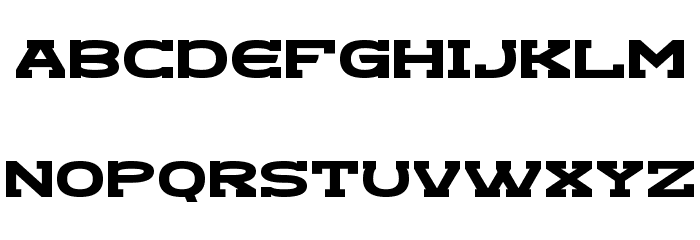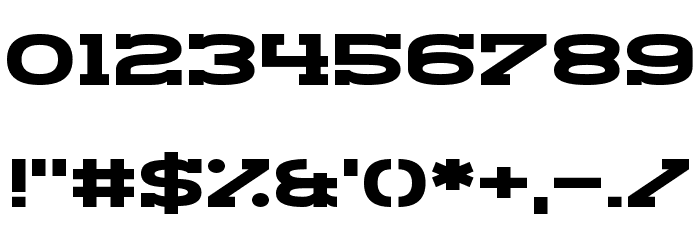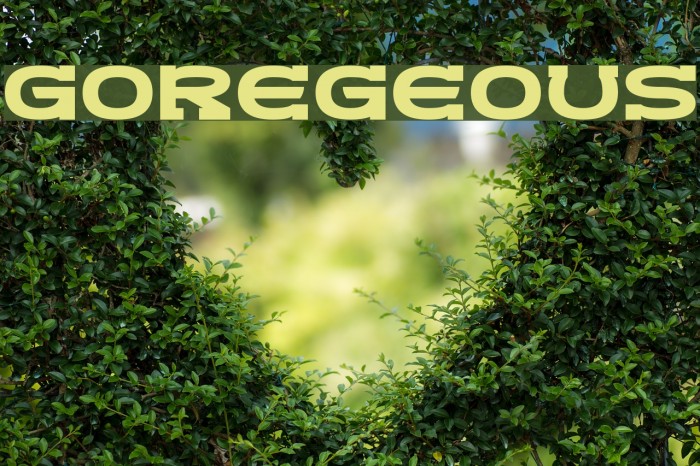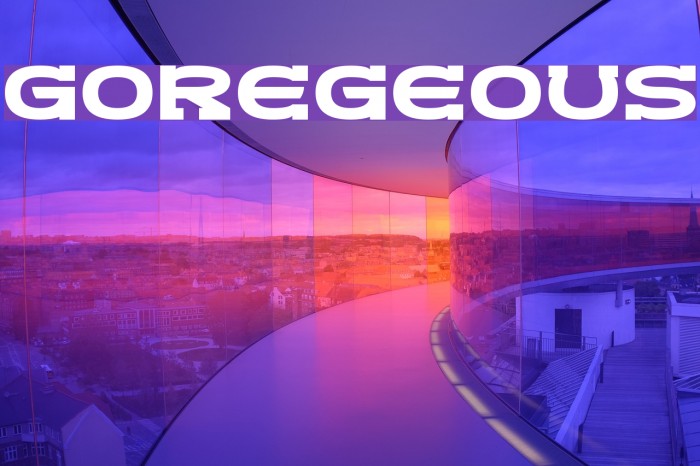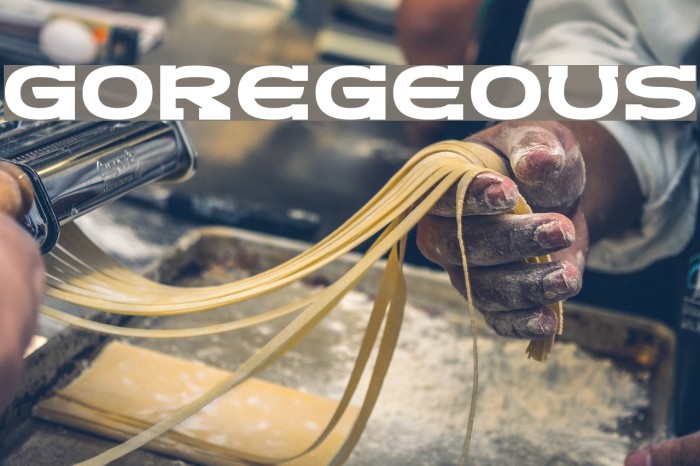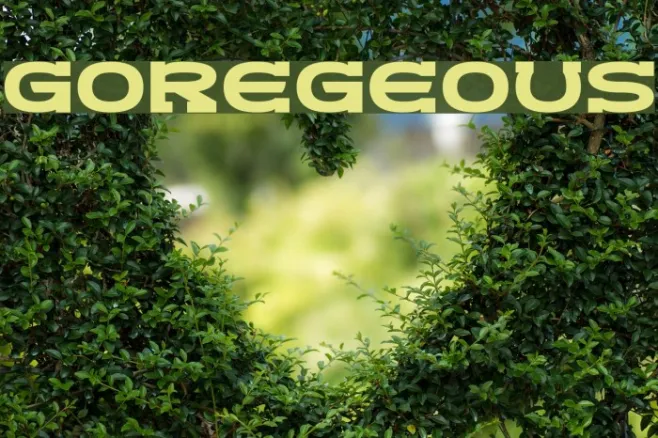
Goregeous Font
This font features a bold and impactful design with a modern twist. The characters are constructed with thick, geometric lines that create a strong visual presence. Each letter is distinct, with sharp angles and a consistent stroke width that conveys a sense of stability and confidence. The uppercase and lowercase letters maintain a uniform style, while the numerals and special characters complement the overall aesthetic. The font's design is both contemporary and versatile, making it suitable for a variety of applications where a bold statement is desired.
A bold, geometric font with a modern and impactful design.
- Proposed Projects: Ideal for branding, posters, headlines, and any project requiring a strong visual impact.